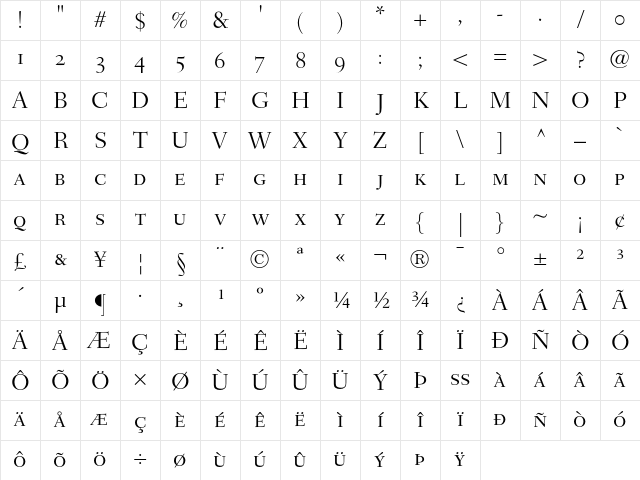
Complete Fairfield LH 45 Light Small Caps & Old Style Figures glyph index. Displaying only characters natively supported by Fairfield LH 45 Light Small Caps & Old Style Figures font.
Fairfield LH is a composed and adaptable typeface that performs quietly and consistently across a wide range of design contexts. Its slender proportions lend an understated elegance to any composition.